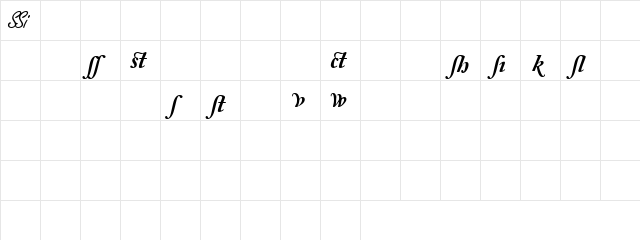
CaslonAlternateSSK SemiBoldItalic Font Preview
Design Context for CaslonAlternateSSK Typeface
CaslonAlternateSSK offers clean, dependable letterforms without strong stylistic allegiance, making it a practical choice for designers who need flexibility. Its italic angle brings a sense of urgency and motion to the letterforms. The heavy weight commands attention and anchors typographic hierarchies.